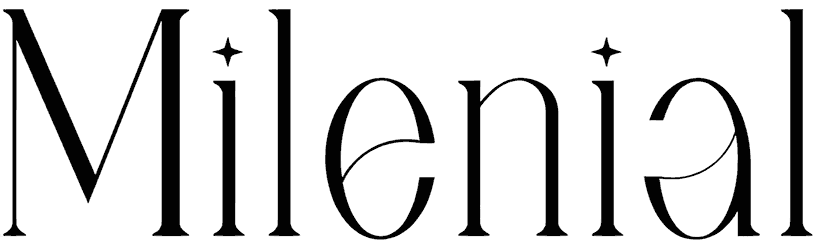
Milenial Font
Surely you don’t want to miss your chance to decorate your text with a glitter font when Milenial is right in front of you, ready to take things up a notch in your artwork. Just say the word, and it’s done.
No wonder this wedding font and its sharp style do such a great job in branding your silverware, pieces of jewelry, and more. Plus, it doesn’t always have to be something shiny to match the elegance of Milenial.